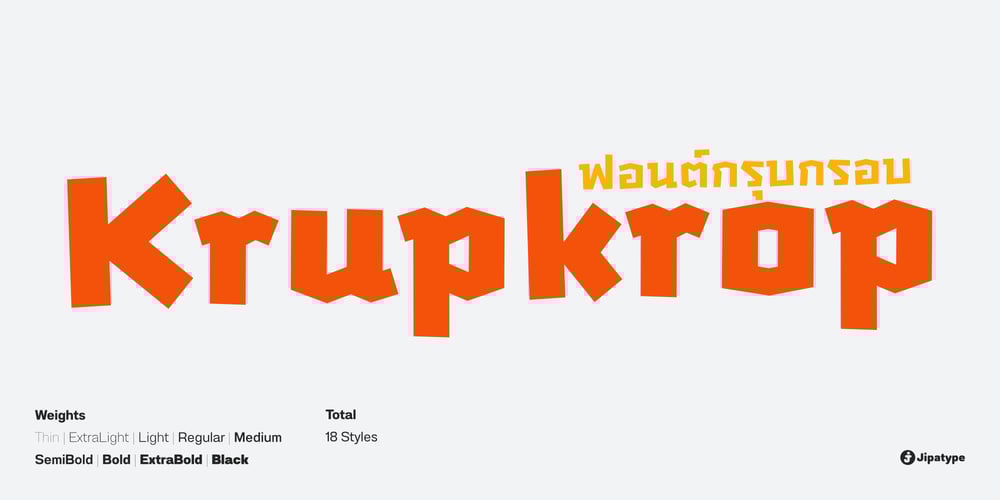
Krupkrop Font Family was designed by Anupap Jaichumnan and published by Jipatype. Krupkrop contains 18 styles and family package options. Krupkrop is a font that uses straight lines as the main structure of the font design. Rotate a little bit vertical line, give a feeling Informal, hard, crisp, fun, lively, suitable for headlines on various media such as billboards, packages. There are 9 weights and italics of each weight total, 18 styles.-ฟอนต์ กรุบกรอบ แบบอักษรที่ใช้เส้นตรงเป็นหลักในการออกแบบโครงสร้างอักษร มีการเอียงเส้นแนวตั้งเล็กน้อย ให้ความรู้สึกไม่เป็นทางการ แข็งกรอบ สนุกสนาน มีชีวิตชีวา เหมาะกับผาดหัวบนสื่อต่างๆ เช่น ป้ายโฆษณา แพ็คเกจ มีทั้งหมด 9 น้ำหนัก และตัวเอียงของแต่ละน้ำหนัก รวม 18 สไตล์